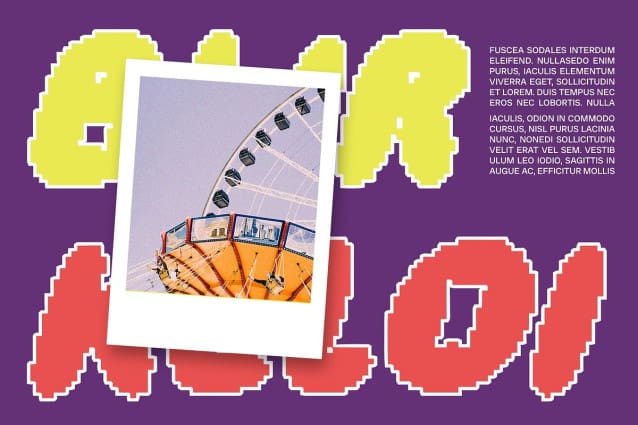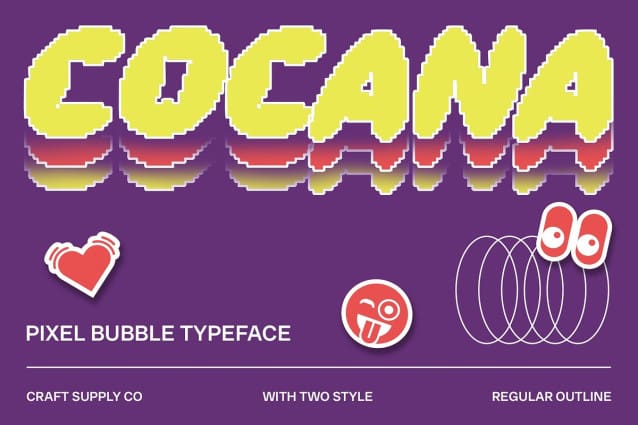
Cocana Pixel Font
Cocana Pixel Font is a delightful display font that combines bubbly shapes with modern pixel effects. This unique blend creates a playful and cute impression, perfect for designs seeking to stand out with a touch of innovation.
With its distinctive bubble shapes and pixelated details, Cocana Pixel adds a fresh and contemporary feel to any project. Whether you’re creating posters, experimental graphics, or promotional materials, this font is designed to captivate and engage audiences with its cheerful and inventive appearance.
Ideal for both digital and print media, CocanaPixel offers versatility in showcasing creativity and uniqueness. Its playful aesthetic makes it suitable for a wide range of applications, from whimsical advertising campaigns to children’s book illustrations.
Embrace the modern playfulness of Cocana Pixel in your designs. Whether you’re aiming for a fun and lighthearted vibe or a bold and innovative statement, this font adds a touch of charm and creativity to every project.